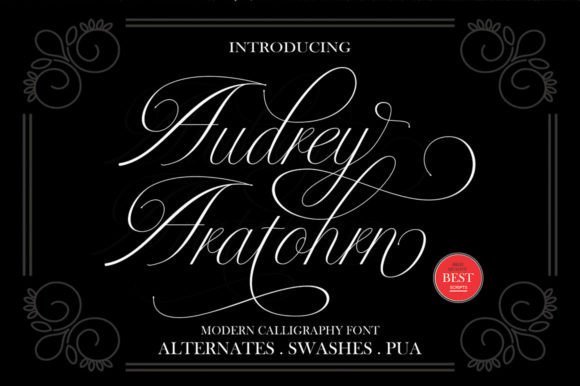
A Touch of Elegance: Unlocking the Beauty of Audrey Aratohrn Font
There’s nothing quite like the feeling of holding a beautifully crafted invitation or greeting card in your hands, the words dancing across the page in elegant script. For designers, this is a moment of pure joy – and it’s exactly what makes the Audrey Aratohrn Font so special. This charming font is perfect for adding a handwritten touch to any design, from wedding invitations to business cards.
With its PUA encoded design, accessing all the glyphs and sweeps is a breeze, making it a valuable tool for designers looking to add a personal touch to their work. Whether you’re a seasoned pro or just starting out, the Audrey Aratohrn Font is a must-have for anyone looking to elevate their designs with a touch of elegance and sophistication.
- Unique Characteristics: This font features a unique, hand-drawn aesthetic with intricate details and subtle flair, making it perfect for creative projects.
Audrey Aratohrn Font Review
I recently had the chance to work with the Audrey Aratohrn Font, and I must say it’s a delightful addition to any design project. Here’s what I like about it: ✨
- Unique and elegant feel – the font’s mix of classic and modern elements makes it perfect for projects that require a touch of sophistication.
- High-quality rendering – the font’s lines are smooth, and the characters are well-defined, making it a great choice for print materials.
- Good legibility – even at smaller sizes, the font remains readable and easy to comprehend.
However, I did encounter some limitations: ⚠️
- Limited language support – the font only includes a basic Latin character set, which may be a concern for projects that require more extensive language support.
- Not ideal for headlines – while the font is great for body text, it may not be the best choice for headlines due to its relatively small x-height.
Overall, I think the Audrey Aratohrn Font is a solid choice for designers looking to add a touch of elegance to their projects. While it may not be perfect for every use case, its unique feel and high-quality rendering make it a great addition to any design toolkit.
The Audrey Aratohrn Font is a beautiful, elegant font that works well for wedding invitations, branding, and other high-end designs.
To get the most out of the font, use it in combination with other elegant fonts and design elements.
The Audrey Aratohrn Font is commonly used for:
High-end marketing materials
Formal event invitations